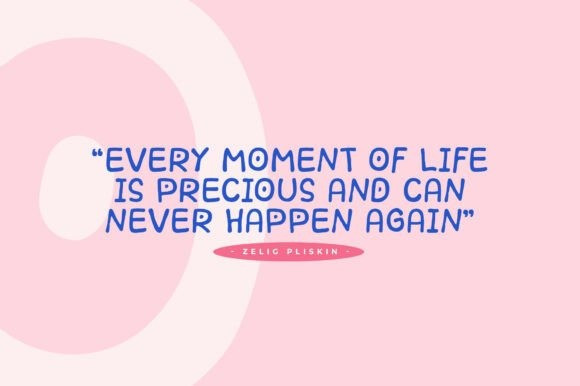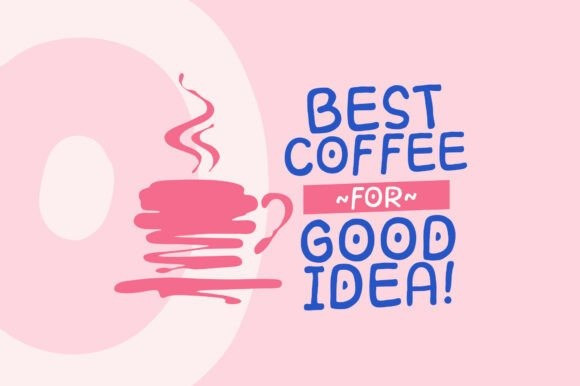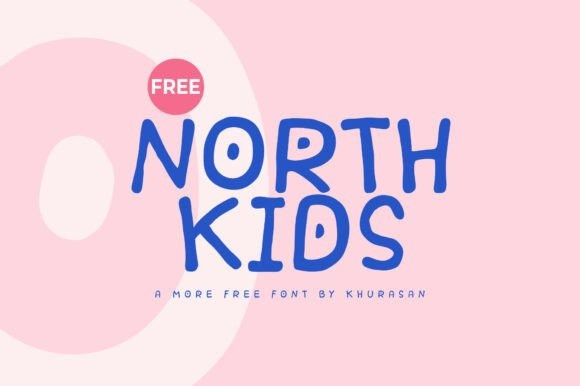
North Kids Font
North Kids Font a vibrant burst of carefree, handcrafted joy into your next project with North Kids, a delightfully playful display typeface. This casual handwritten font features loose, organic letterforms uniquely characterized by uneven stroke weights, charmingly irregular baselines, and geometric marker-dot accents inside the counters. Evoking the nostalgic warmth of children’s illustration blocks and summer camp craft journals, North Kids is the premier choice for independent toy shop branding, custom nursery artwork prints, animated storybook headings, youth educational event posters, and high-impact social media graphics.